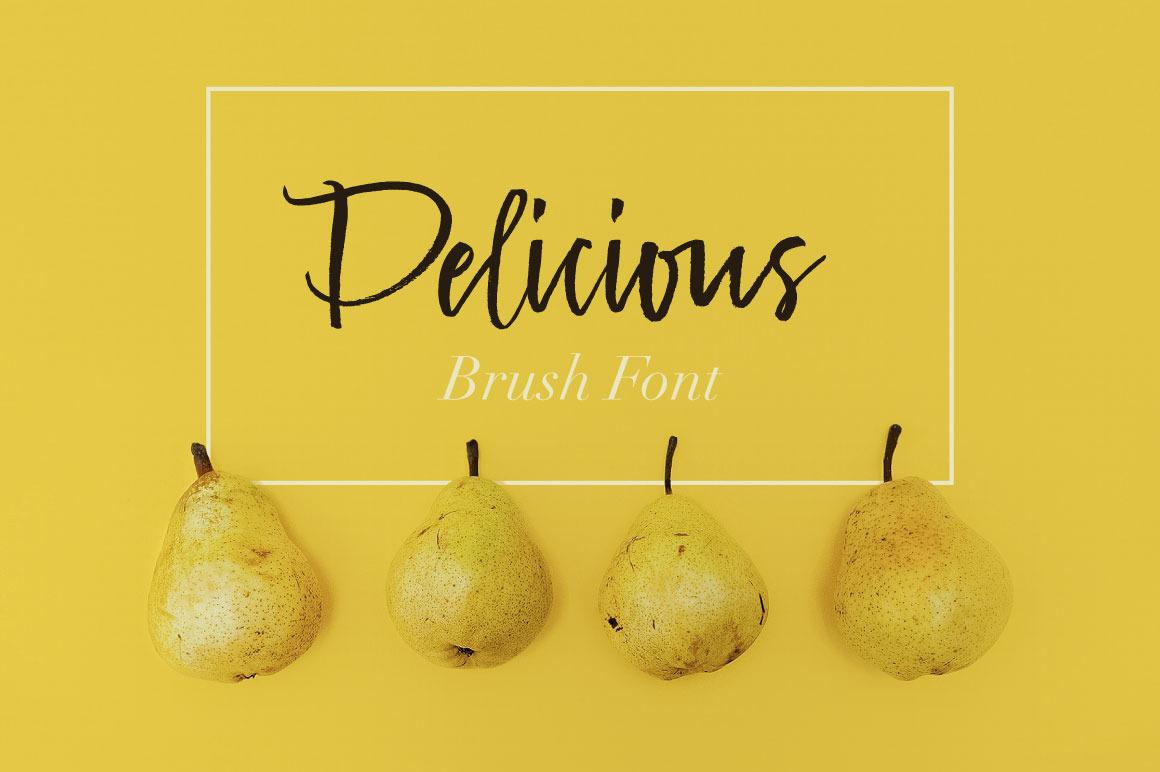
Delicious Brush Font
About Delicious Brush Font
Delicious Brush Font is a bright juicy lovely modern calligraphy typefaces. Delicious is good for both short texts and headlines.
It has some alternative glyphs and ligatures.